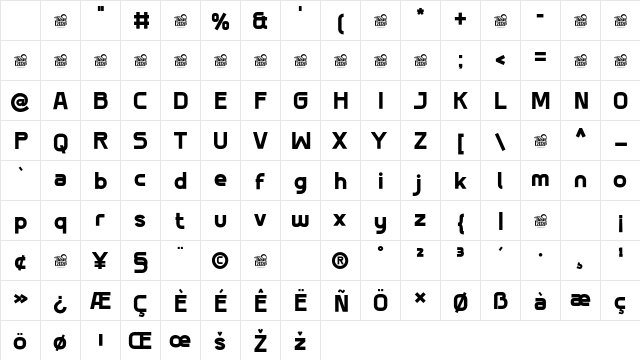
Complete Toleis Black Regular glyph index. Displaying only characters natively supported by Toleis Black Regular font.
Toleis Black is a composed and adaptable typeface that performs quietly and consistently across a wide range of design contexts.